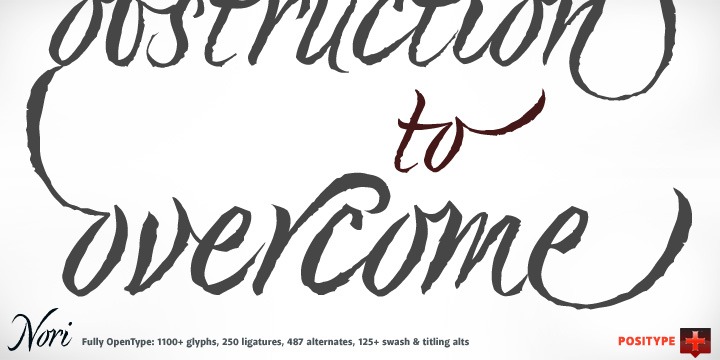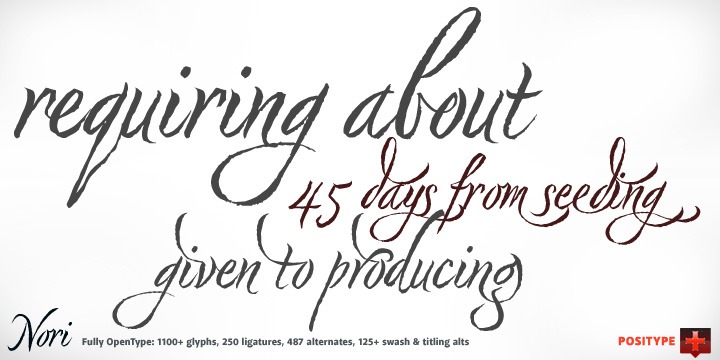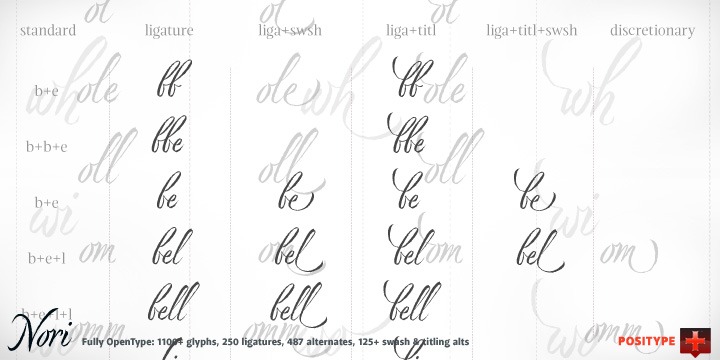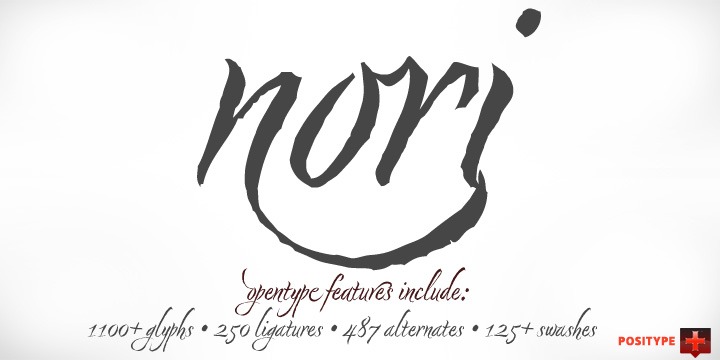
Nori
Font Family by Positype
First, the important information?Nori is a hand-lettered typeface that contains over 1100 glyphs, 250 ligatures, 487 alternate characters, 125+ swash and titling alternates, lining and old style numerals.
To make sure it is perfectly clear?Nori is the result of brush and ink on paper. The textures produced in each glyph are real and the imperfections are intentional and add to the sincerity of the letters. I say this to be as blunt as possible in order to avoid confusion and to frame what this typeface represents?calligraphic, handwritten letters captured digitally for their warmth and poetic variation for print and screen.
Like my handwritten, calligraphic or brush-driven faces before it (the Baka series and the TDC2 2010 winning typeface, Fugu), Nori is a product of my analog and digital hand. To view the words and sentences formed by this typeface is to look at how my hands, yes hands, make letters. The fluidity, as well as the irregularity, is human, honest and intentional'to do so lets the brush I am holding breathe life into each letter. Once digital, any number of points and repetitive processes can't mask its influences?and I like that.
The brush, a simple instrument, my tool, my friend designed to emulate traditional Japanese sumi-e brushes... the Pilot Japan Kanji Fude brush pen. Each letter, each variation was written over and over again until I found the right combination. From there, each was scanned, digitized and optimized. Points were removed in order to ?clean? the glyphs up some but I did not want to compromise the integrity of the actual brush stroke. Once this base set of characters (about 350) were completed, the thoughtful manipulation of the glyphs, their gestures and forms were further expanded to solidify the embellishments used within the ligatures, alternates, swashes and additional features.
This process was admittedly self-indulgent to an extent. I wanted the words created with this typeface to have the flexibility of variation and cohesiveness of movement that someone fluidly producing these letters by hand might have.
I hope you enjoy this typeface as much as I did during the six months working on it.